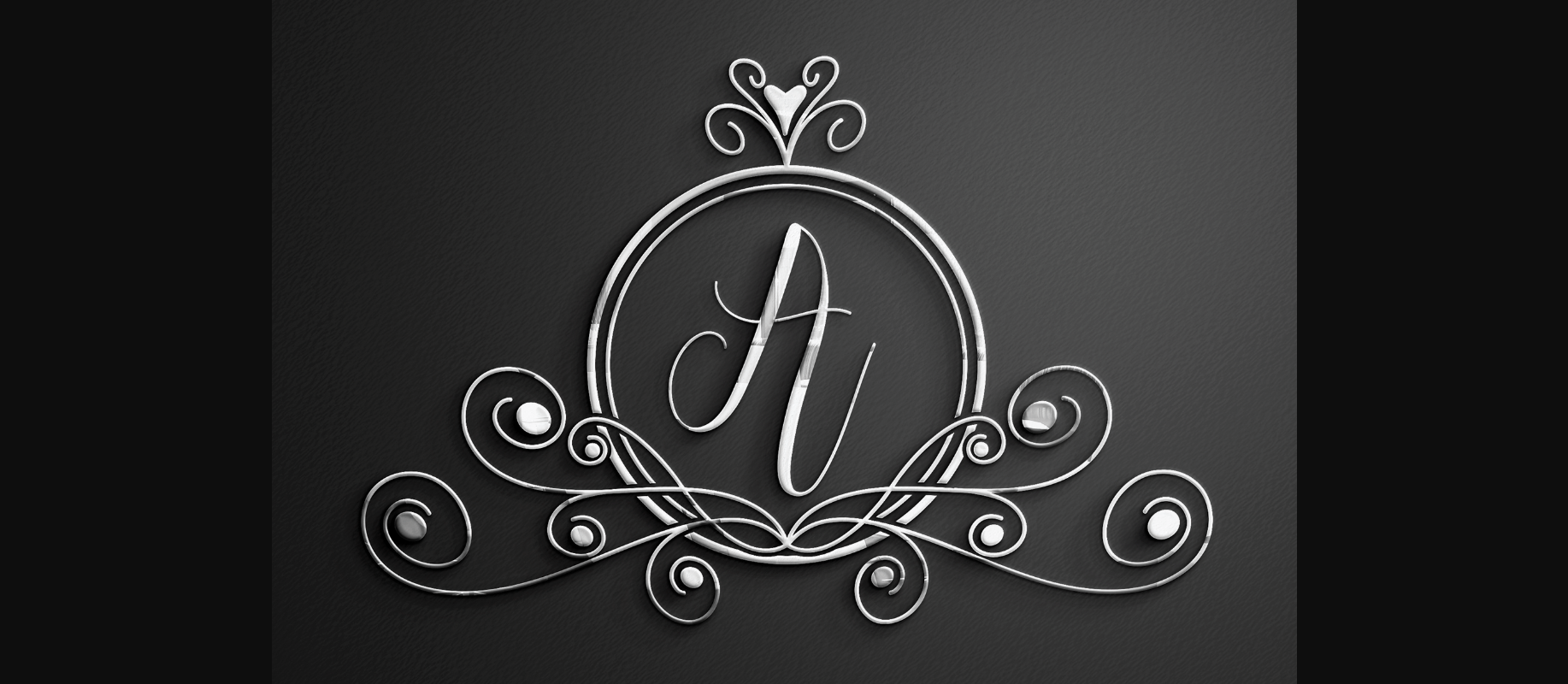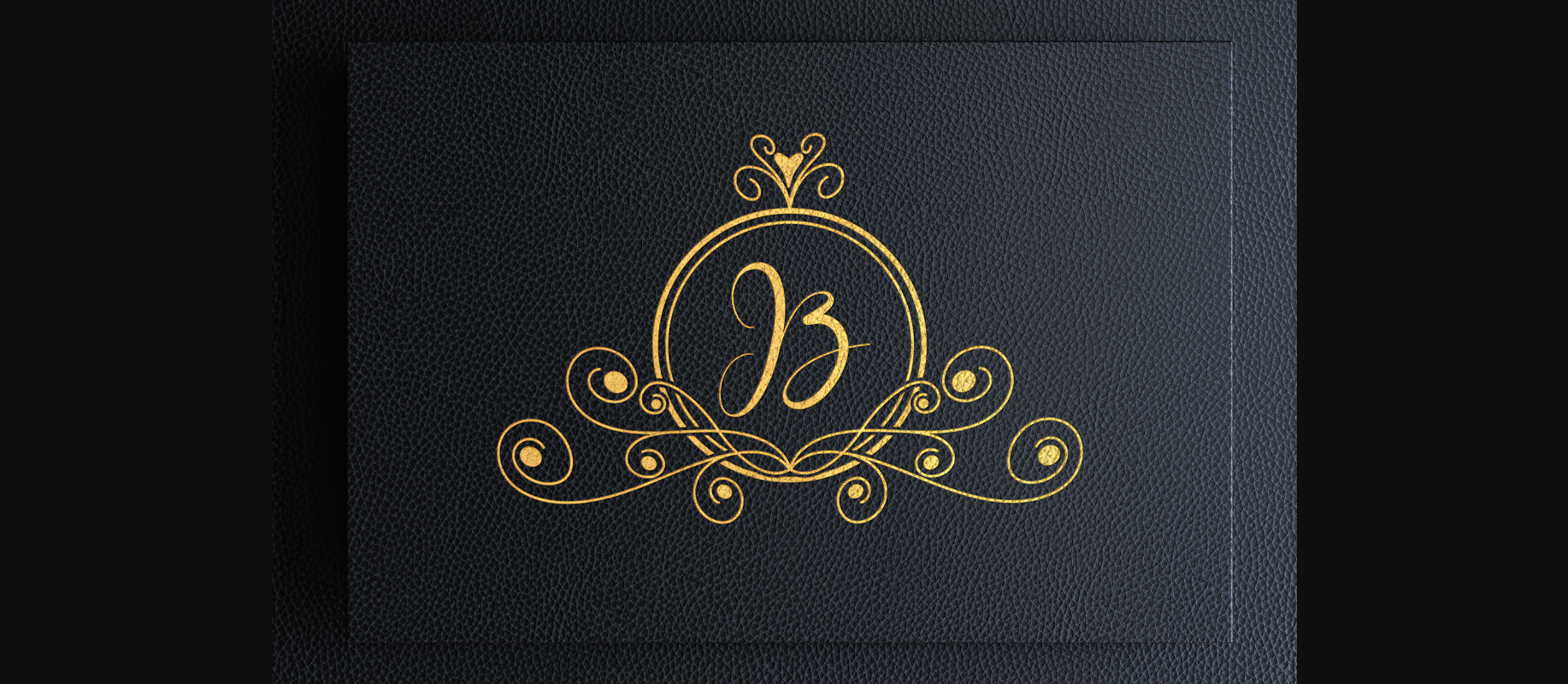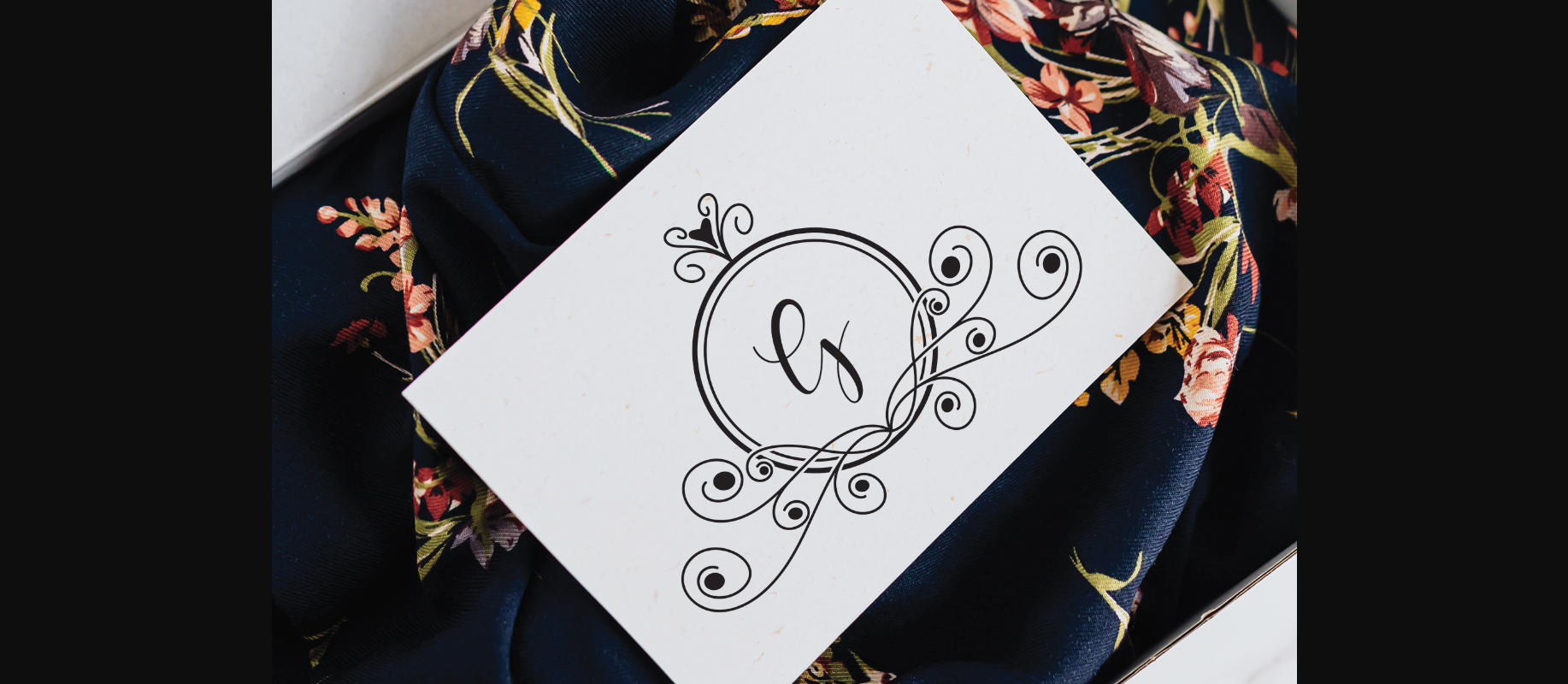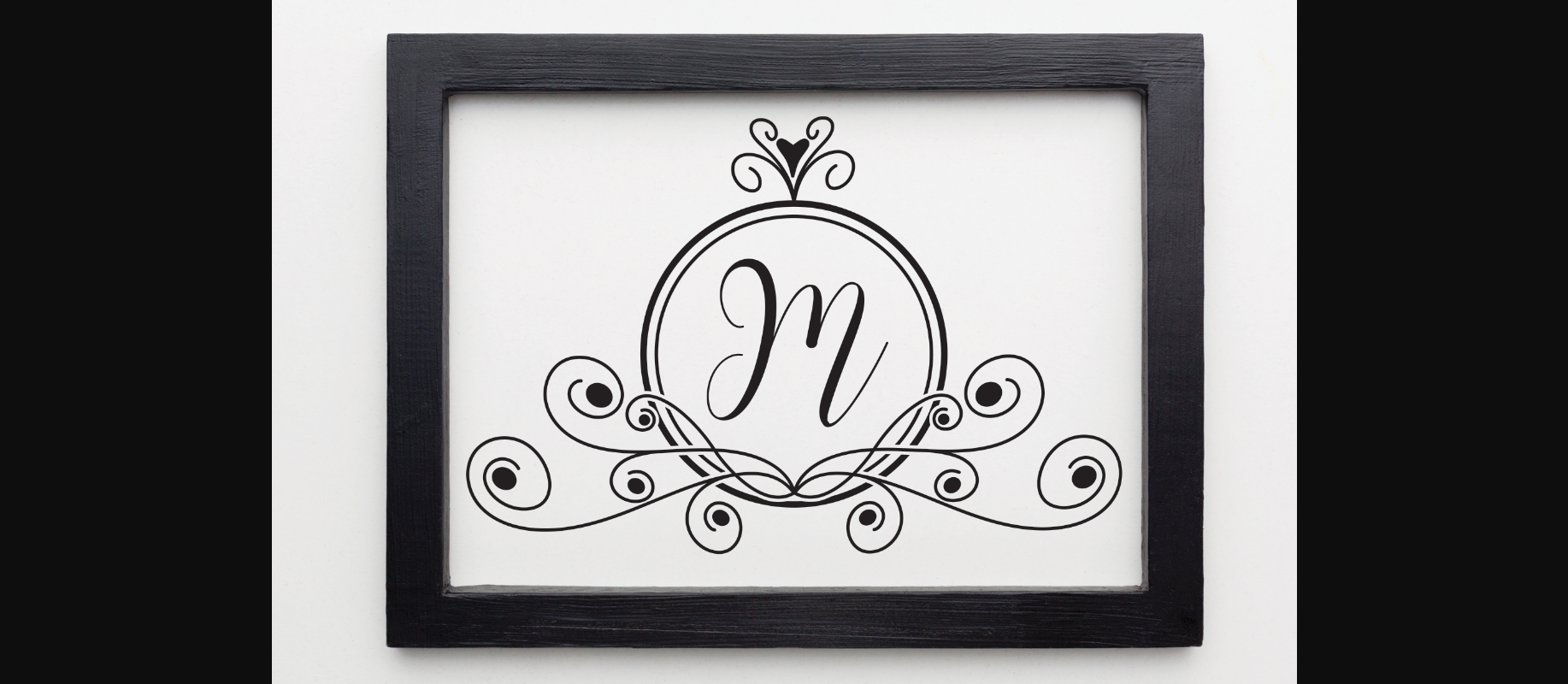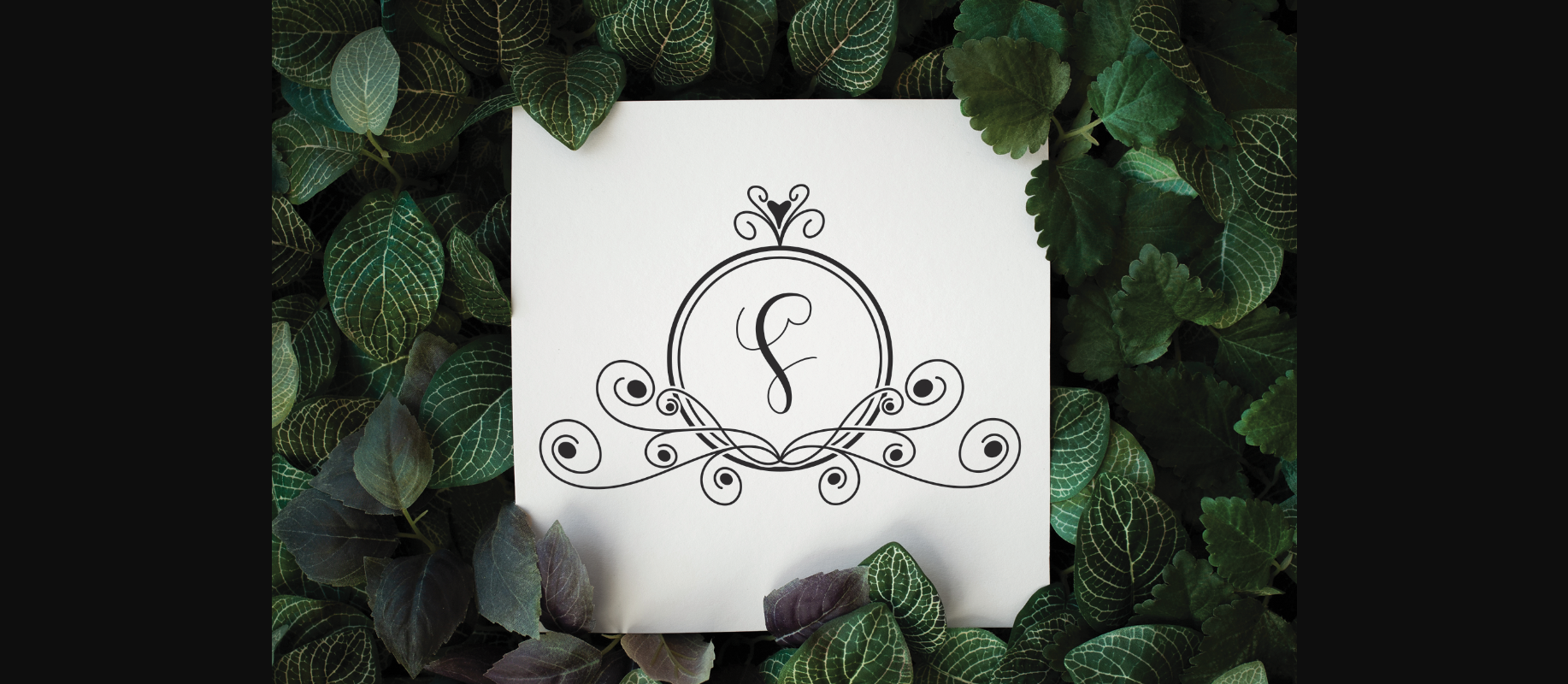
About A Monogram Font
A monogram is a sweet and creative decorative font that will help you create unique designs! Use it on watermarks, signatures, photography, wedding projects, and more!